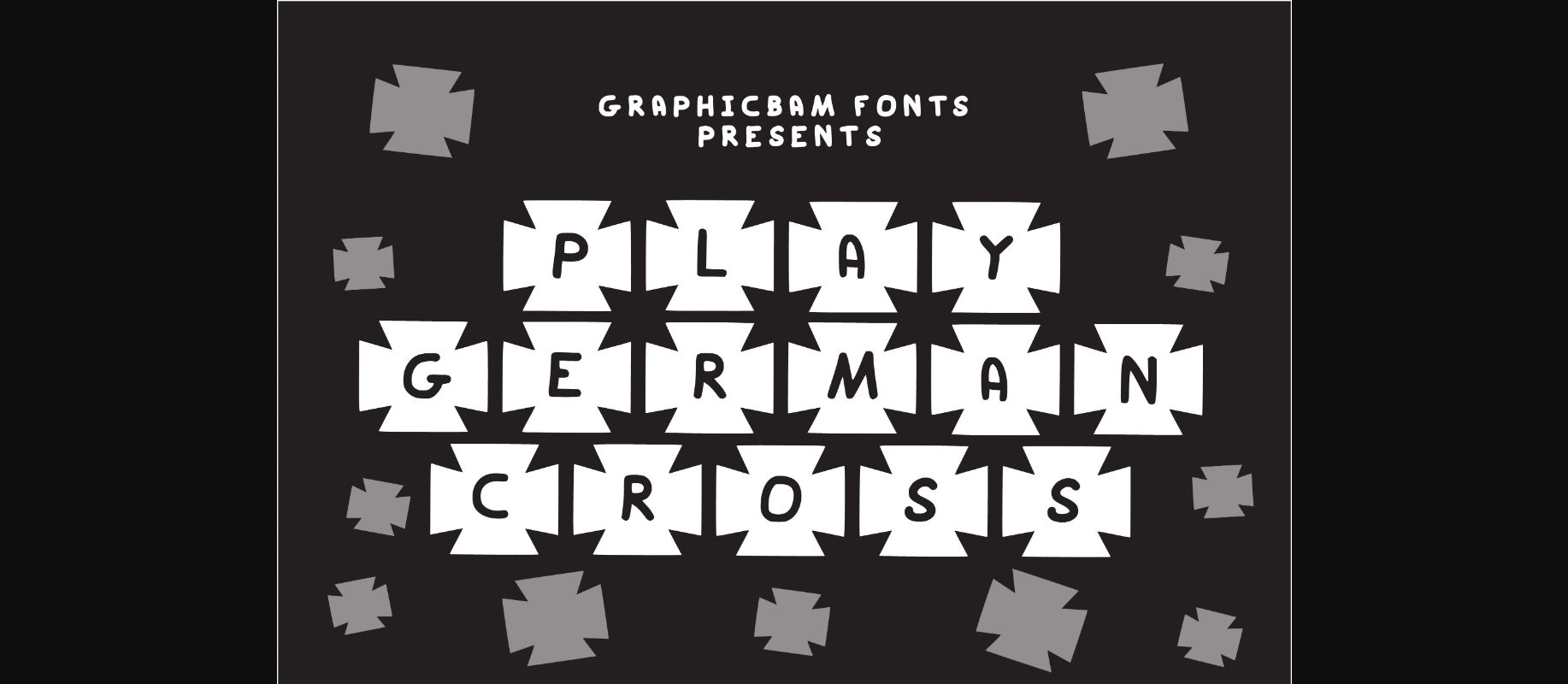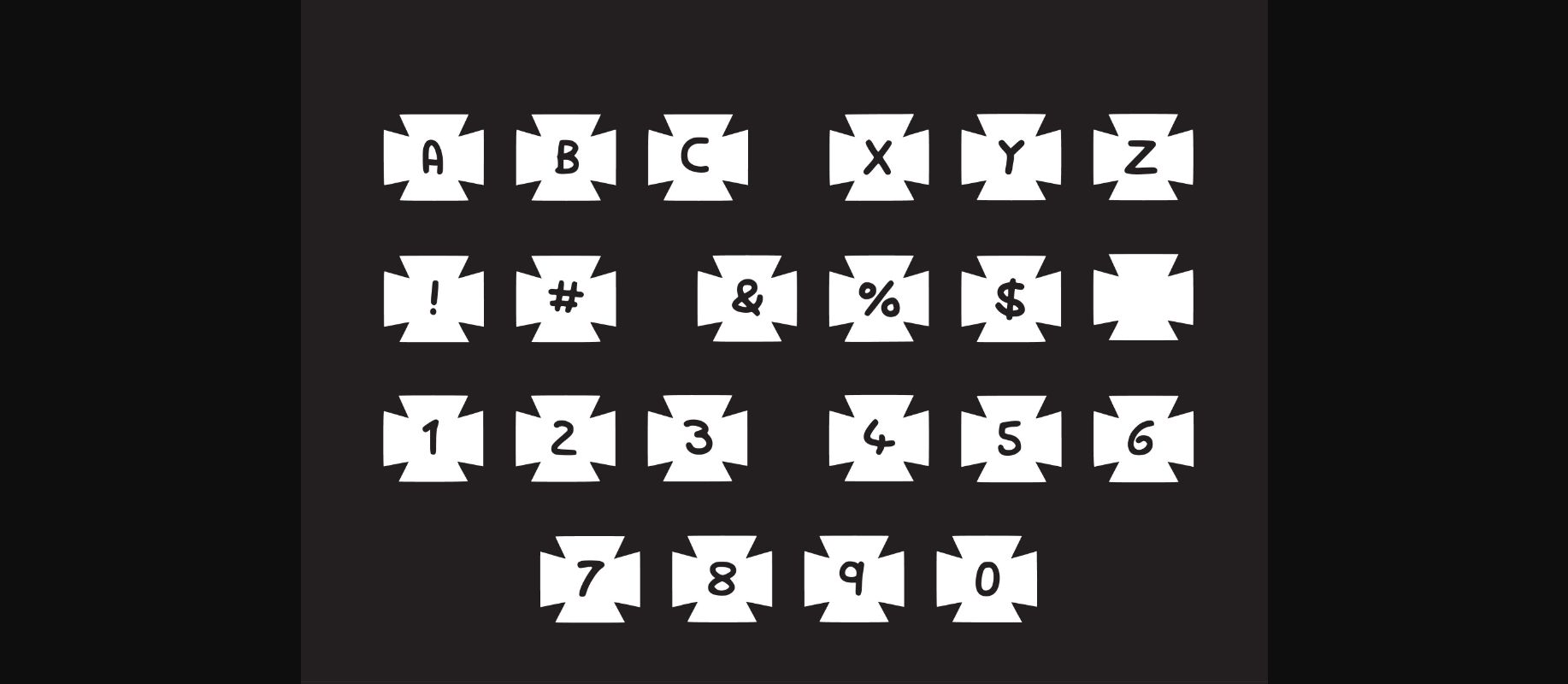
About Play German Cross Font
Play German Cross is a unique and creative decorative font, perfect for true German products and ideas! Each character is contained in a german cross, perfect for creating stunning short text, and not only.